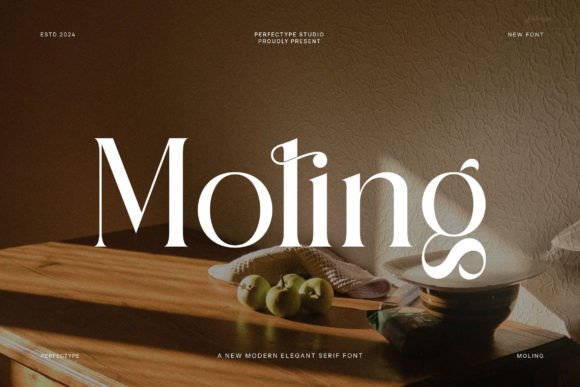
Introducing Moling Font: A Sophisticated Ligature Serif for Luxury Branding
In the world of typography, a well-crafted font can elevate a brand’s identity and make it stand out from the competition. Moling Font is a premium ligature serif typeface designed to exude luxury and sophistication. With its unique ligatures and high-end quality, Moling Font is perfect for brands looking to make a statement.
The Story Behind Moling Font
What Makes Moling Font Unique?
Moling Font is a ligature serif typeface that sets itself apart from regular serif fonts. The ligatures, which connect letters in a flowing manner, give Moling Font its unique character and charm. This feature makes it perfect for brands looking to add a touch of sophistication to their branding.
Key Features of Moling Font
- Ligature serif typeface: Moling Font features beautiful ligatures that connect letters in a flowing manner.
- Premium quality: Our font is designed to have a high-end feel, making it perfect for luxury brands.
- Luxury feel: Moling Font exudes elegance and sophistication, making it perfect for high-end branding.
- Unique and distinctive: The ligatures in Moling Font make it stand out from regular serif fonts.
Use Cases for Moling Font
Moling Font is versatile and can be used in various contexts, including:
- Logo design: Create a lasting impression with a custom logo designed using Moling Font.
- Headlines and titles: Add a touch of elegance to your headlines and titles with Moling Font.
- Invitations and greeting cards: Make your invitations and greeting cards stand out with Moling Font’s luxurious feel.
- Labels and packaging: Elevate your product packaging with Moling Font’s premium quality.
- Magazines and books: Use Moling Font to add a touch of sophistication to your publications.
- Fashion and beauty branding: Moling Font is perfect for fashion and beauty brands looking to exude luxury and elegance.
Why Choose Moling Font?
With so many fonts available, why choose Moling Font? Here are a few reasons:
- Unique and distinctive: Moling Font’s ligatures make it stand out from other fonts.
- Premium quality: Our font is designed to have a high-end feel, making it perfect for luxury brands.
- Versatile: Moling Font can be used in various contexts, from logo design to packaging.
- Elegant and sophisticated: Moling Font exudes luxury and elegance, making it perfect for high-end branding.
Tips for Using Moling Font
Here are a few tips for using Moling Font effectively:
- Use it sparingly: Moling Font is best used sparingly to make a lasting impression.
- Pair it with a sans-serif font: Pair Moling Font with a sans-serif font for a striking contrast.
- Experiment with different sizes: Experiment with different sizes to find the perfect fit for your design.
Moling Font is a sophisticated ligature serif typeface designed to exude luxury and elegance. With its unique ligatures and premium quality, Moling Font is perfect for brands looking to make a statement. Whether you’re looking to create a custom logo, headline, or packaging, Moling Font is the perfect choice.